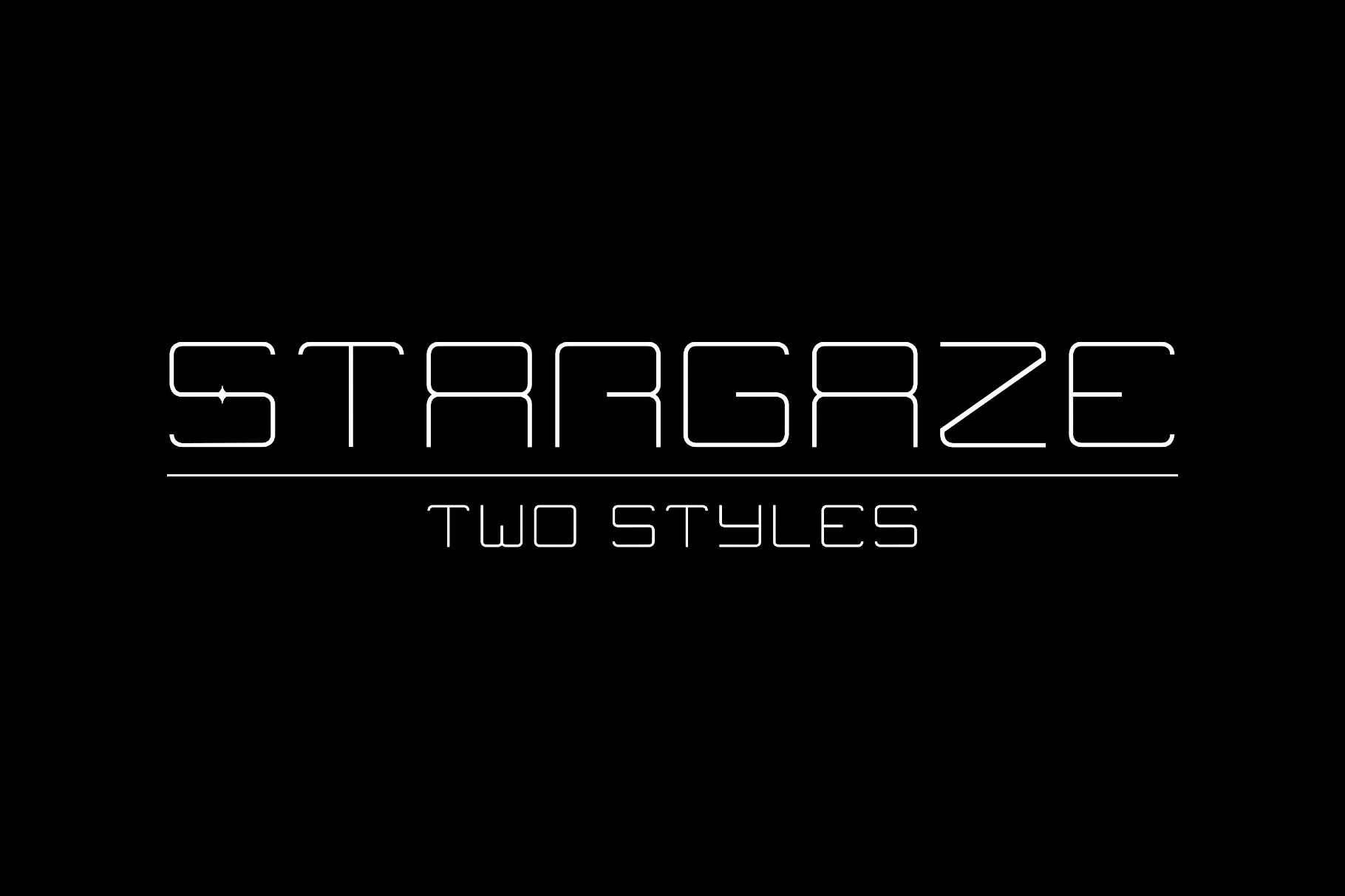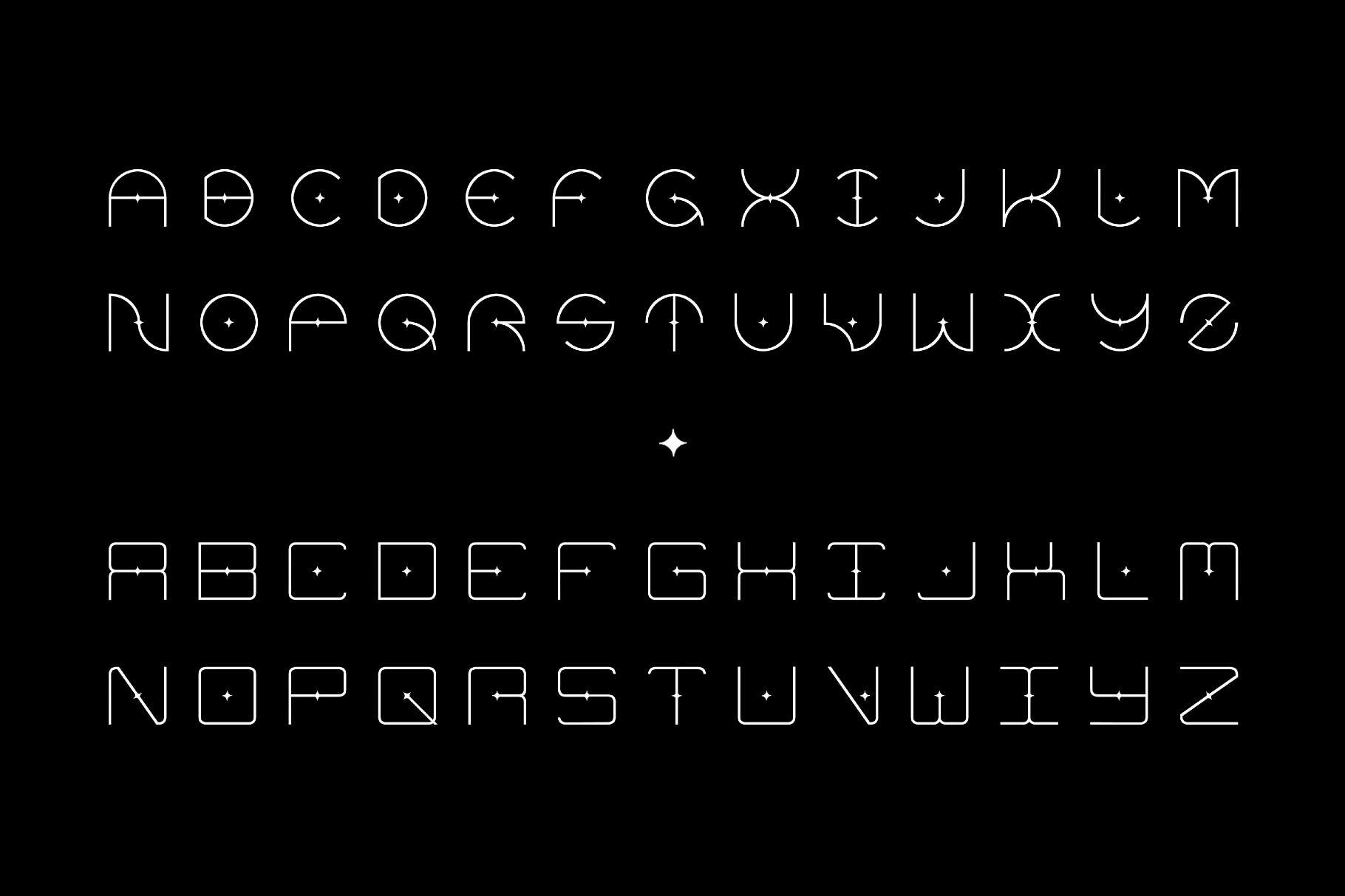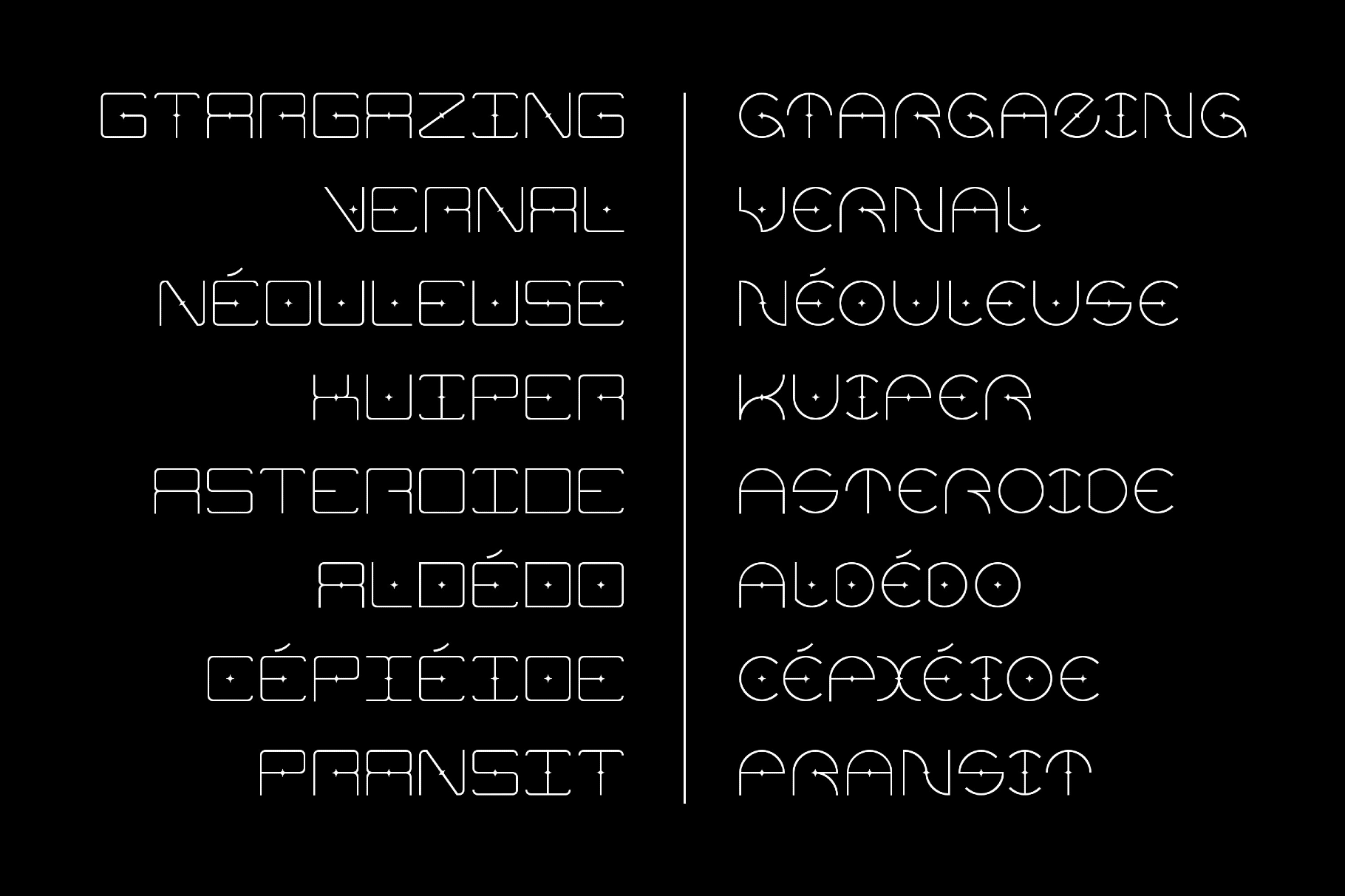
Stargaze Space Duo
Circle
Square
Suppose you need something to suggest life on the moon, use the bright, strange font Stargaze. The mix of circular and square letterforms feels easy to place across different formats. It works well for posters, magazines, album covers, title cards, speculative branding, game graphics, brand experiments, and editorial layouts.
- 2 styles: Circle and Square;
- 2 sets of uppercase Latin letters;
- basic punctuation;
- multilingual support across an extended Latin script.